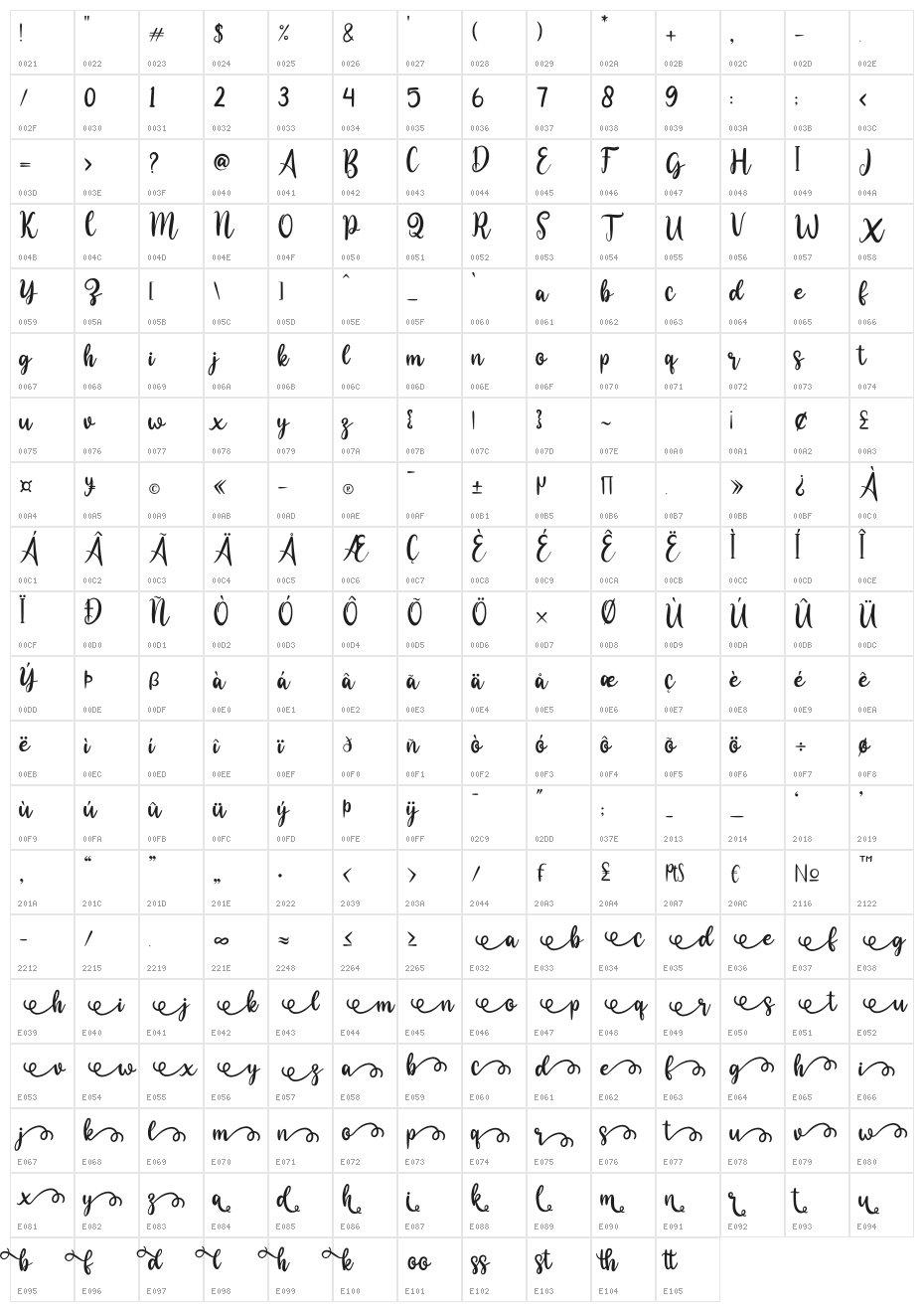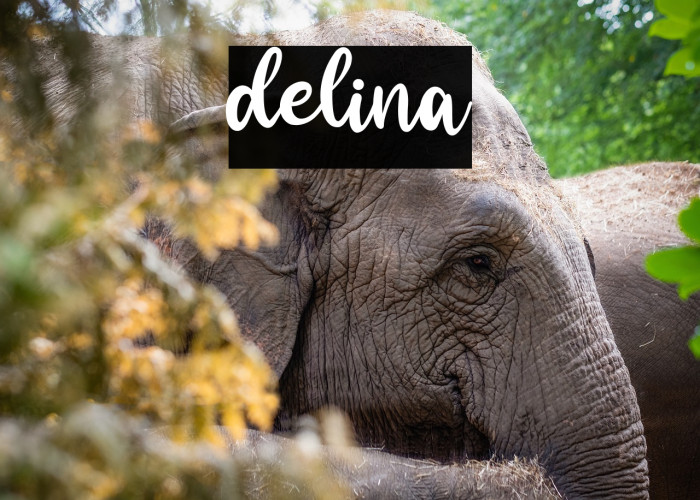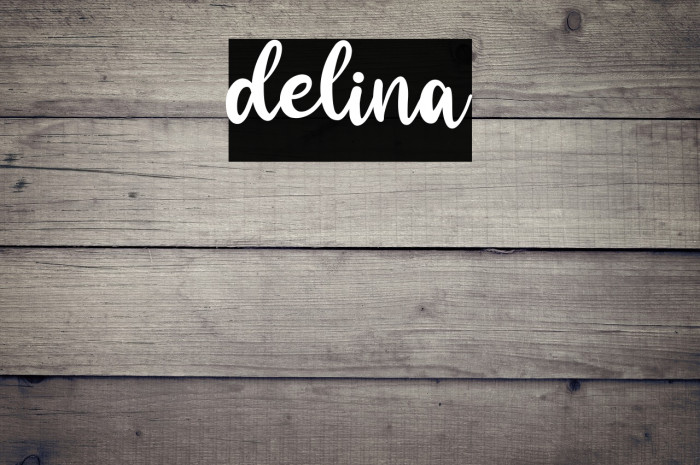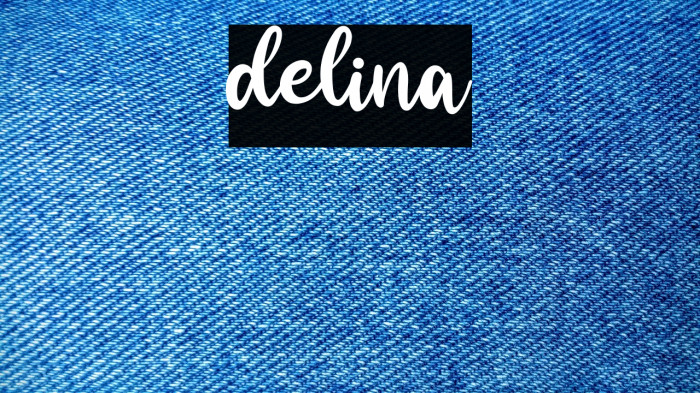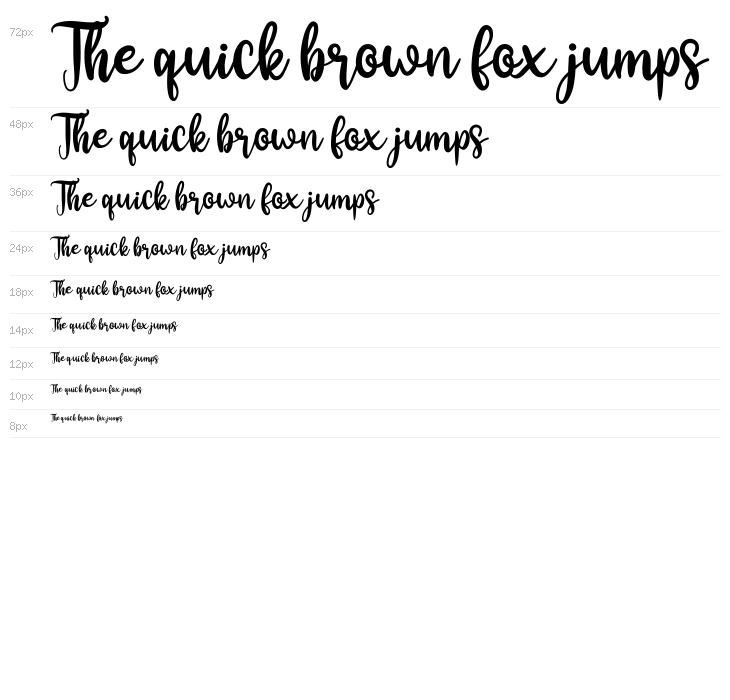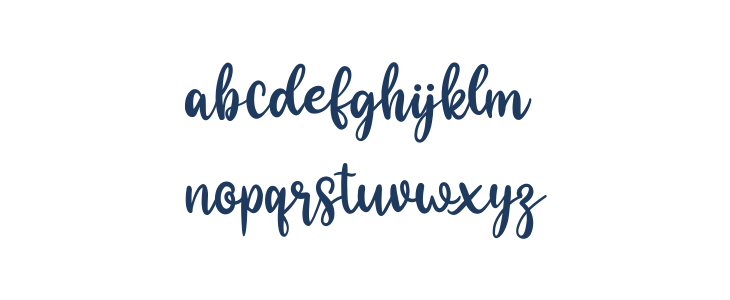
delina Font
delina Description
This font features a lively and playful script style with a handwritten appearance. The uppercase letters are bold and flowing, with elegant loops and curves that give a sense of movement and grace. The lowercase letters maintain a consistent style, offering a smooth transition between characters, enhancing readability while retaining a whimsical charm. The numbers are well-integrated, matching the overall aesthetic with their rounded and slightly exaggerated forms. Special characters are thoughtfully designed, maintaining the font's cohesive look. This font is perfect for projects that require a personal touch, such as invitations, greeting cards, or branding materials.